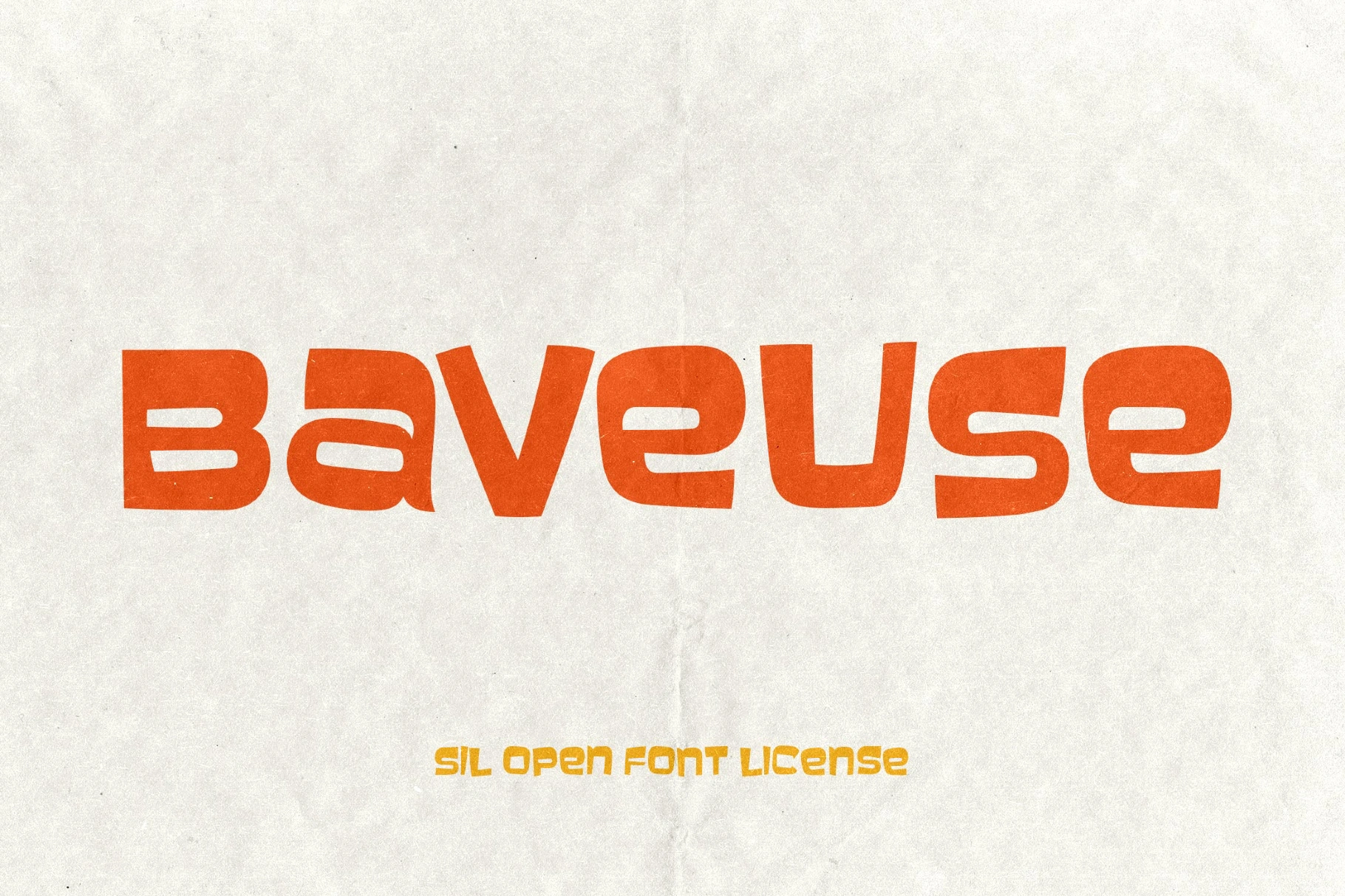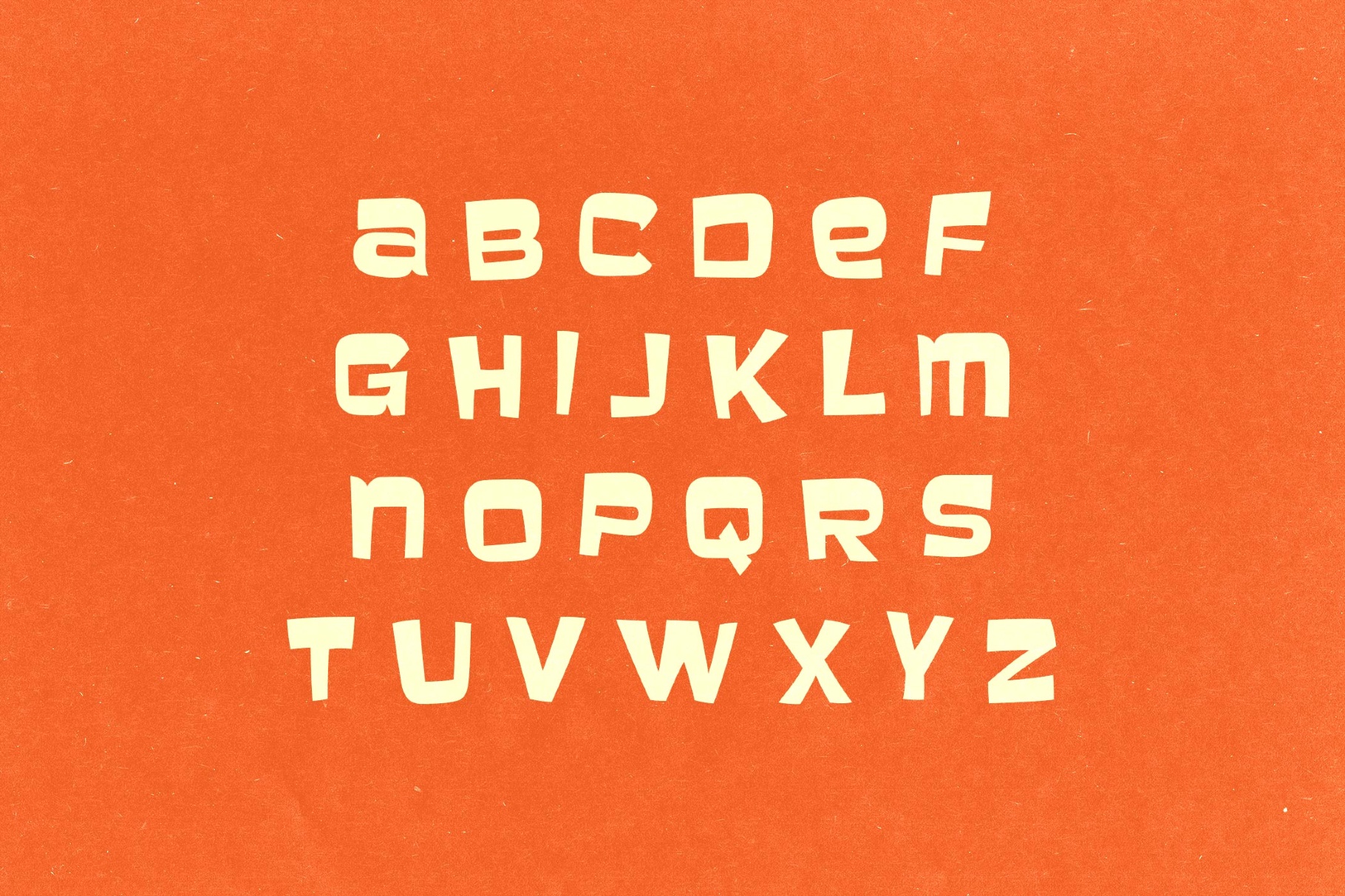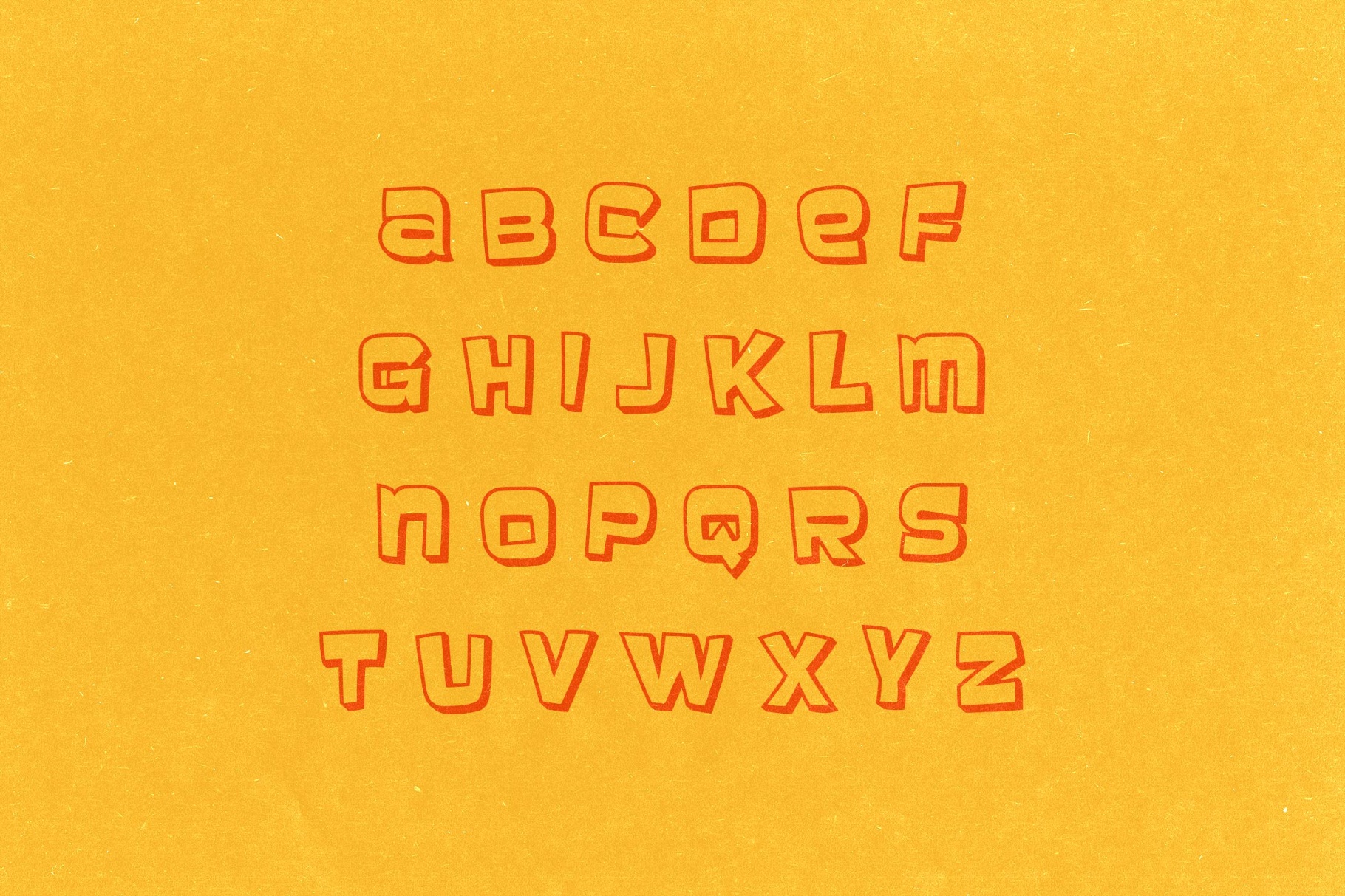
Baveuse Font
Baveuse
Baveuse is a funny hand-drawn typeface with rounded, top-heavy forms that recall children’s comics, marker lettering, and the playful exaggeration of 1990s animated title cards. This font will be a great fit for kids’ posters, sticker packs, toy packaging, party invites, logo sketches, summer camp graphics and social posts.
- Uppercase & lowercase;
- Numerals, punctuation & symbols;
- Ligatures and alternates set.